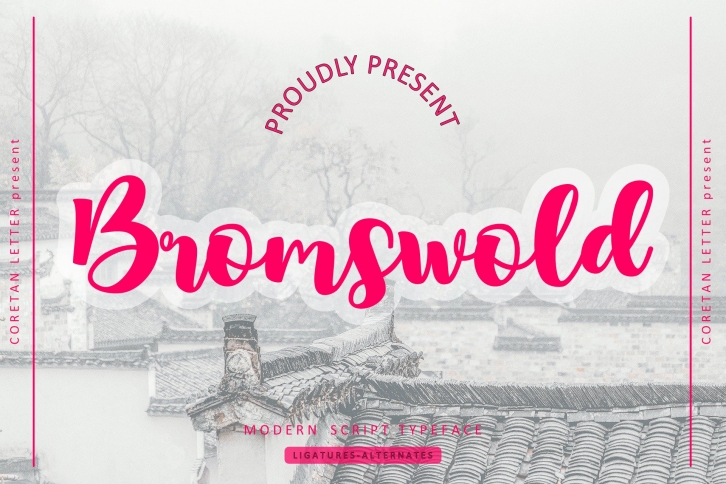
Bromswold is a beautiful font that was designed by Coretanletter. It's a great choice for designers and creatives who need such a font. It was released on March 23, 2021 and the file size is 11.92 MB. Bromswold may give a more youthful, expressive and casual look to your project. It is a very beautiful, refined, elegant, and high-quality font.